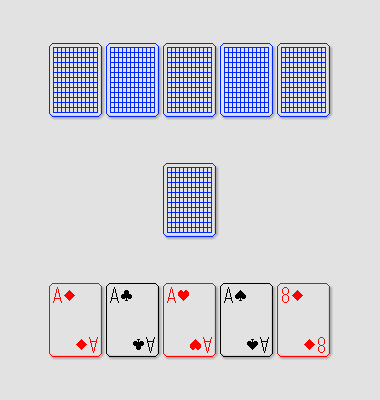
Full Deck
aphoria
I know this is probably pushing the limit of "sports", but I'm releasing it anyway.
a-m :: Diamonds
n-z :: Hearts
A-M :: Clubs
N-Z :: Spades
0-6 :: Various card backs
[ :: Club
] :: Spade
{ :: Diamond
} :: Heart
Only 9, because of no pictures on cards higher than 10. The rest is excellent.
It's about as sporty as I ever get :) Beautifully constructed 10/10